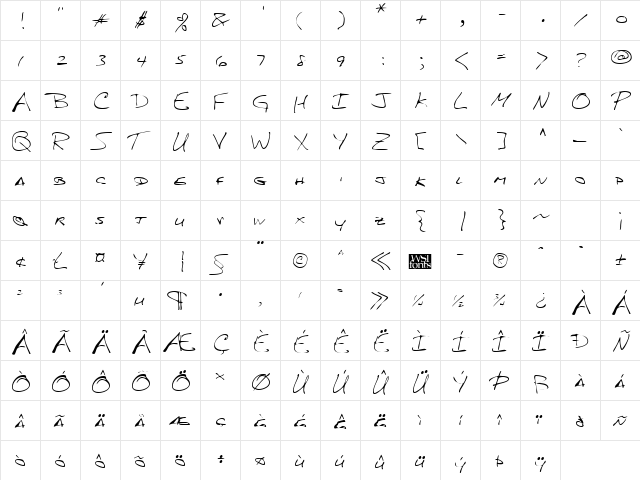
KarlsHand Regular
Design Context for KarlsHand Typeface
KarlsHand brings a calligraphic fluidity to the page — its connecting strokes and expressive curves give it an unmistakably human quality.
Font Pairing: Combine KarlsHand with a simple geometric sans for maximum contrast — the tension between flowing curves and clean structure is a classic typographic pairing.
Pro Tip: Use KarlsHand for short runs of text — names, titles, or taglines. Extended body copy in script faces tires the eye quickly.